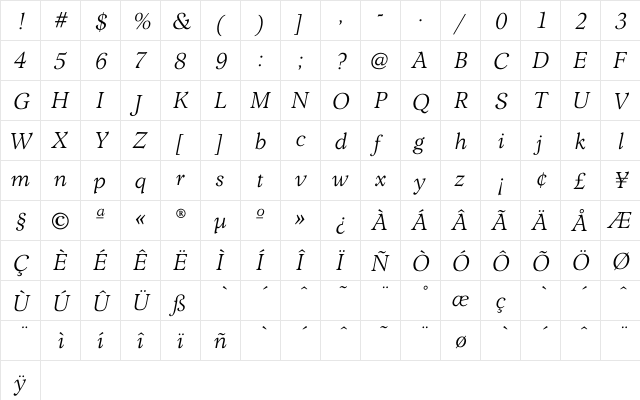
LombaBookItalic Regular
Design Context for LombaBookItalic Typeface
LombaBookItalic is a composed and adaptable typeface that performs quietly and consistently across a wide range of design contexts. Its italic angle brings a sense of urgency and motion to the letterforms.
Pro Tip: Use LombaBookItalic for emphasis, pull quotes, and subheadings where its slanted energy can add rhythm to the layout.